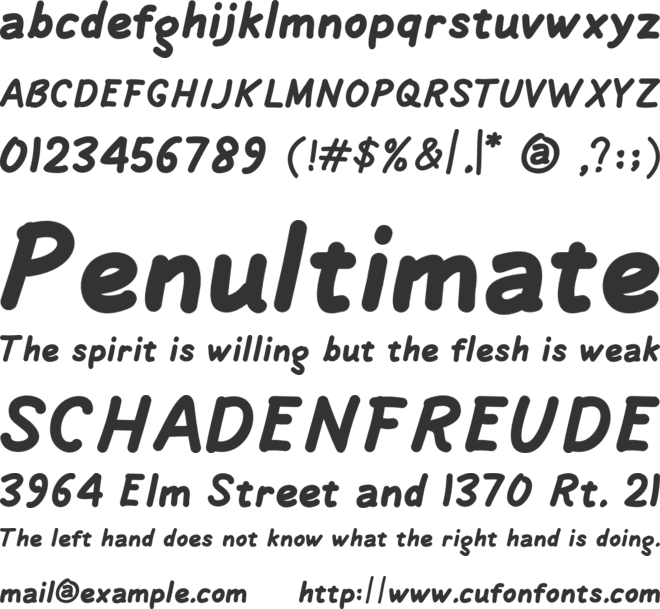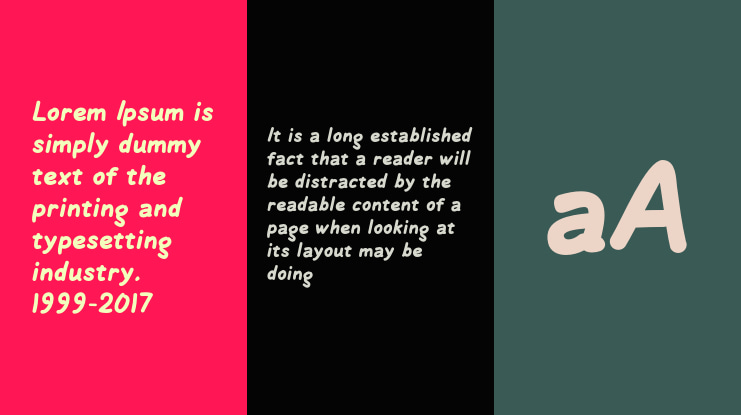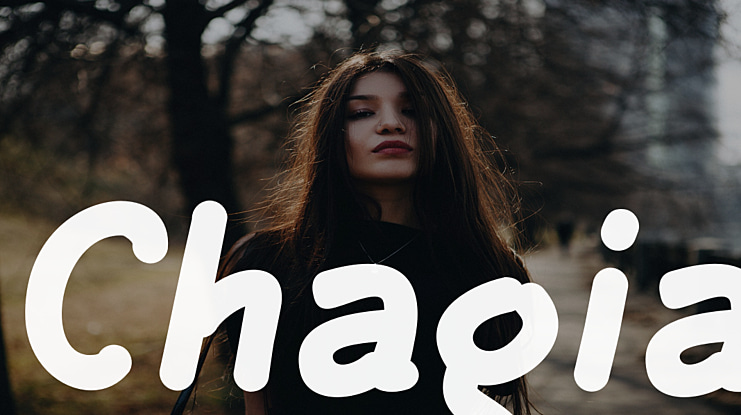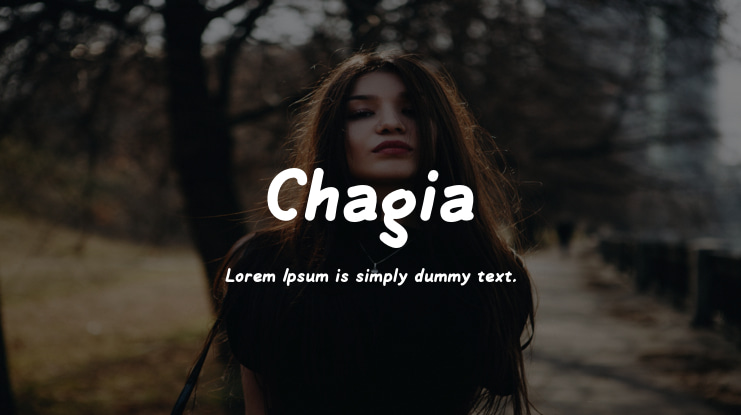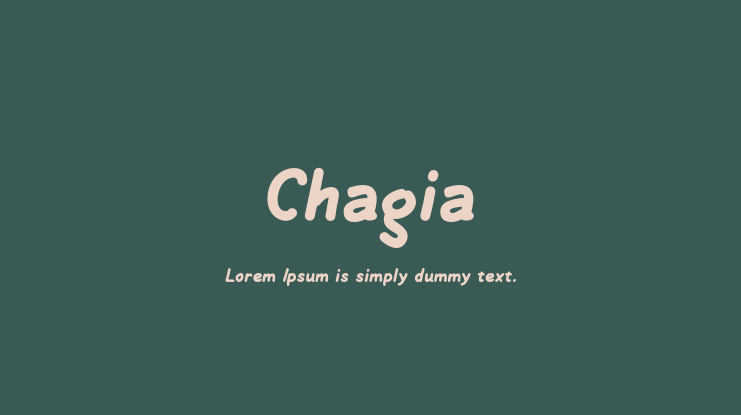
Chagia Font
Chagia is a cool, vintage-style display font. Use it to add that special retro touch to any design idea! It can be used for logos, branding, invitations, stationery, wedding designs, social media posts, and much more!